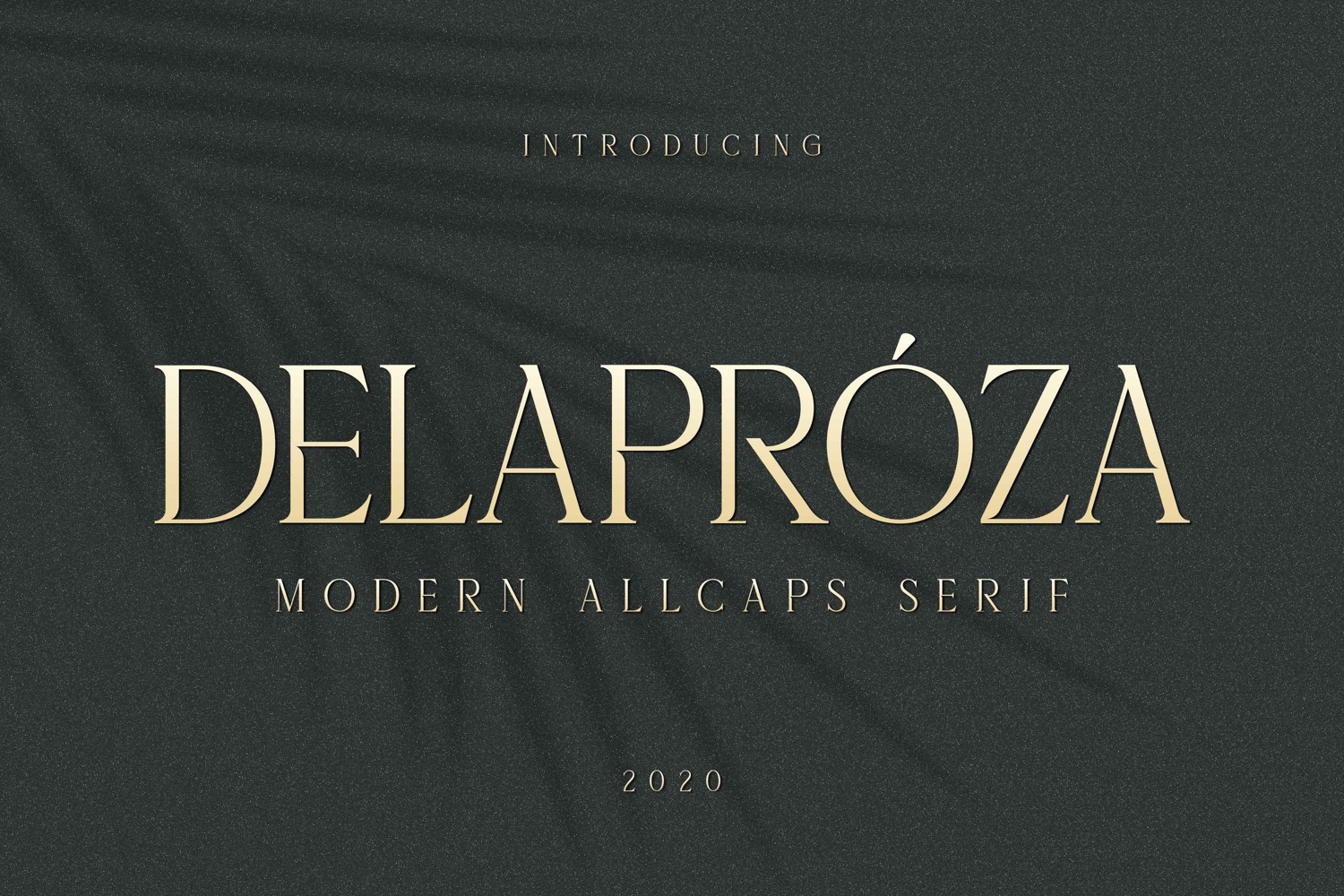
Delaproza - Modern Allcaps Serif
Introducing Delaproza – Modern Serif font inspired by the famous minimalist logo perfect for the purposes of designing templates, brochures, videos, advertising branding, logos and more.